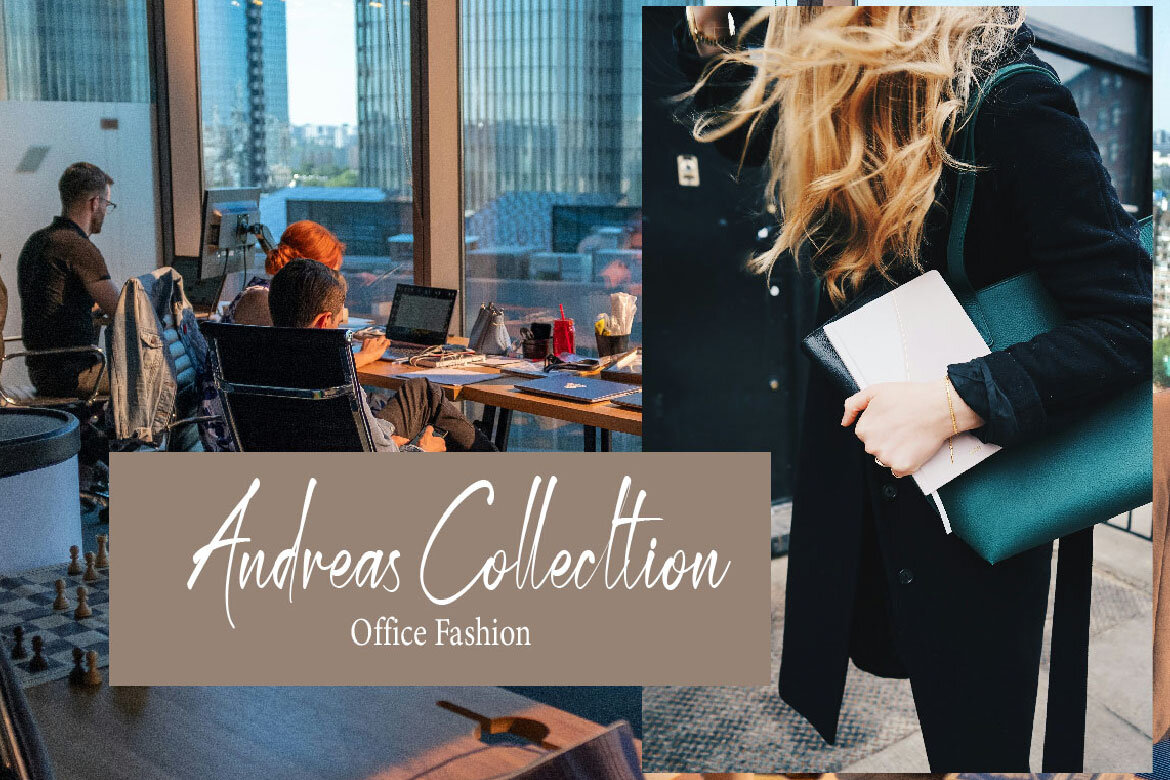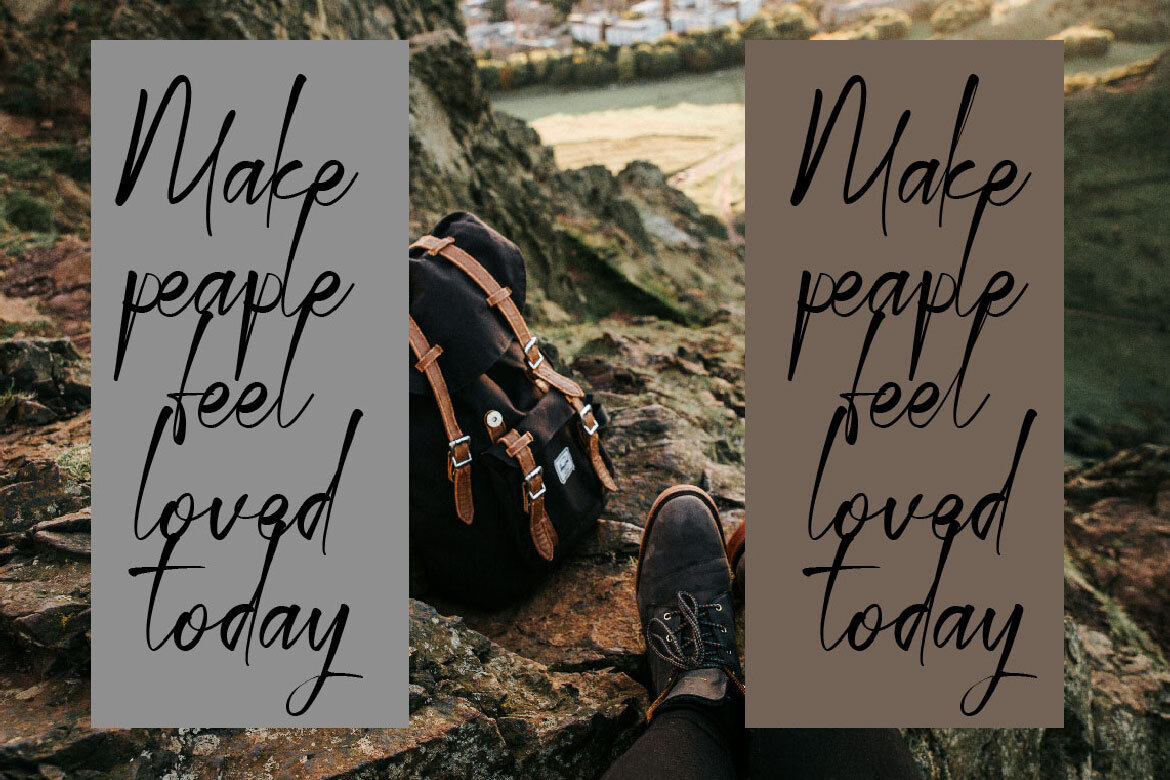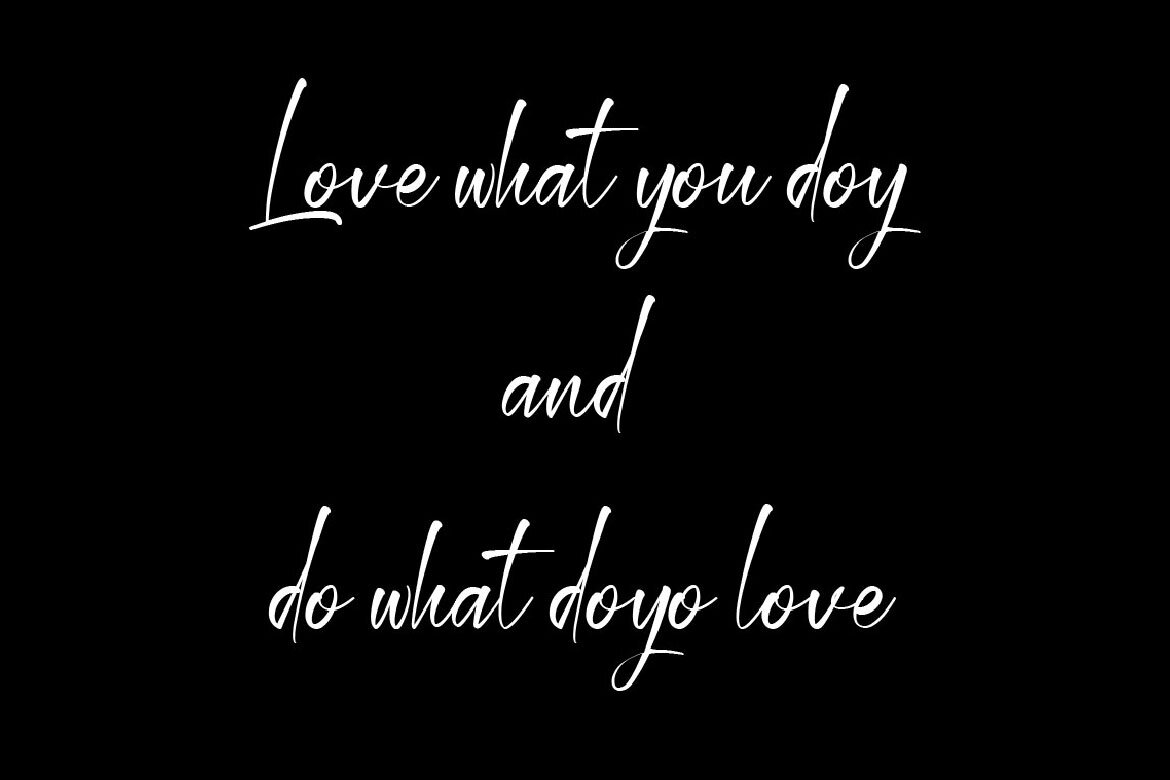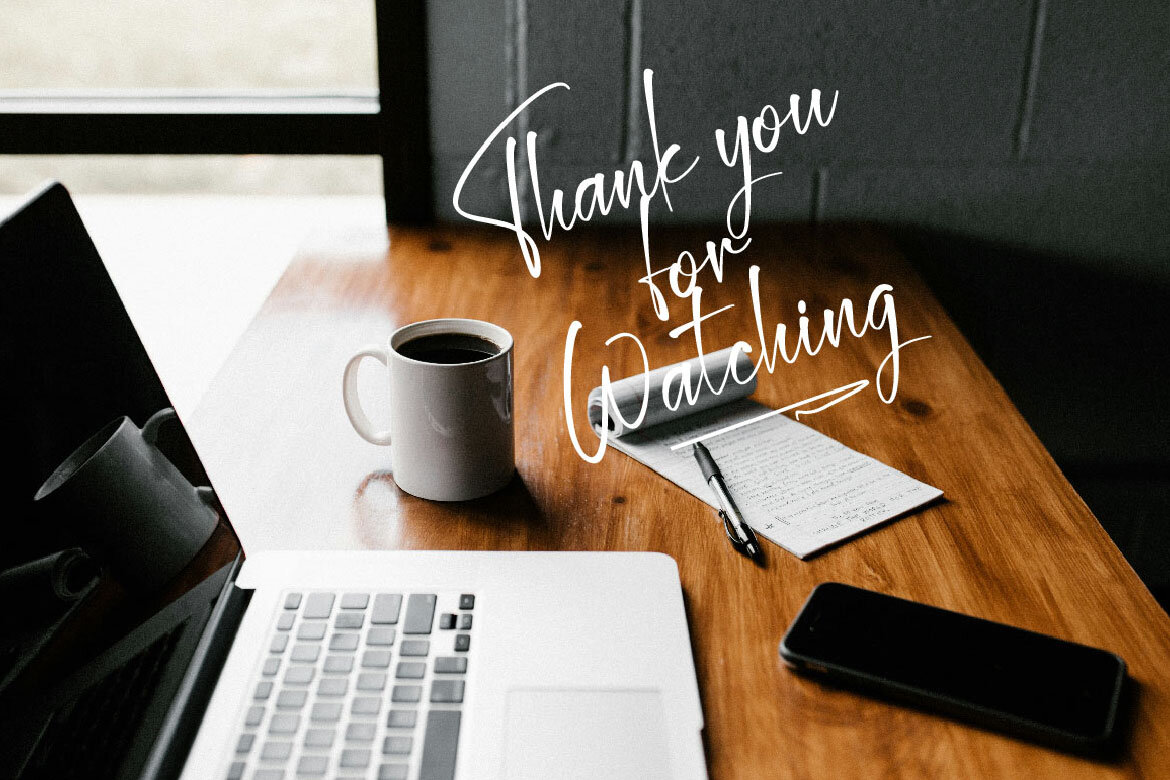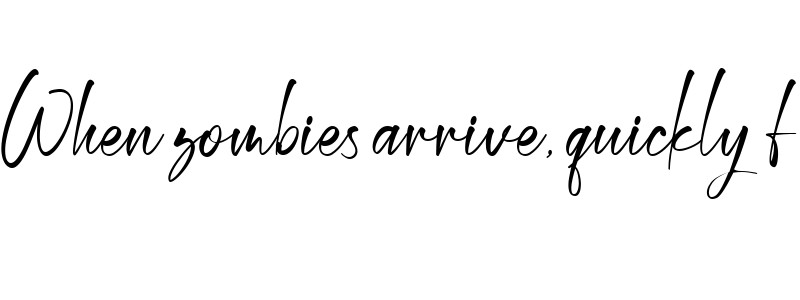
Most Emotional FREE Font
Most Emotional Signature
Introducing the Most Emotional font. This font is Signature calligraphy font of handcrafted elegance. Inspired by nature's effortless grace, this font captures the essence of natural handwriting. With its flowing strokes and authentic charm, Insightful adds a touch of warmth and sincerity to your designs. Perfect for convething a sense of authenticity and connection, let Insightful illuminate your creative projects with its natural signature font.
• Stylish Alternate, Numeral and punctuation
• Ligatures, Alternate, and multilingual support